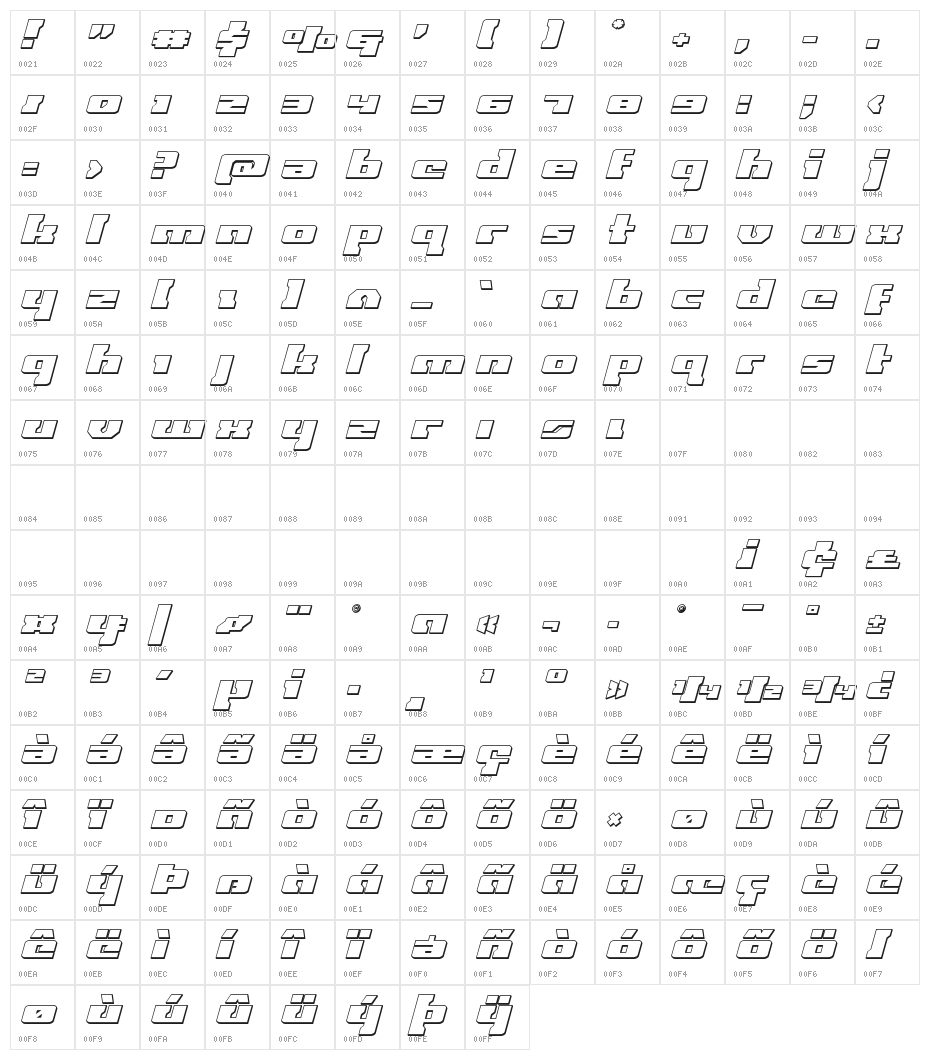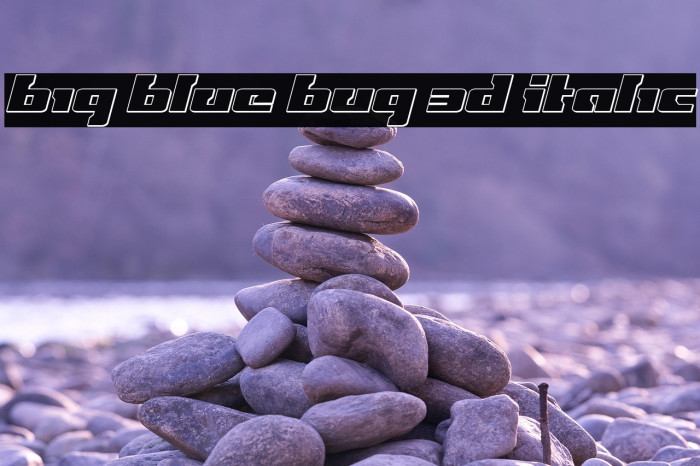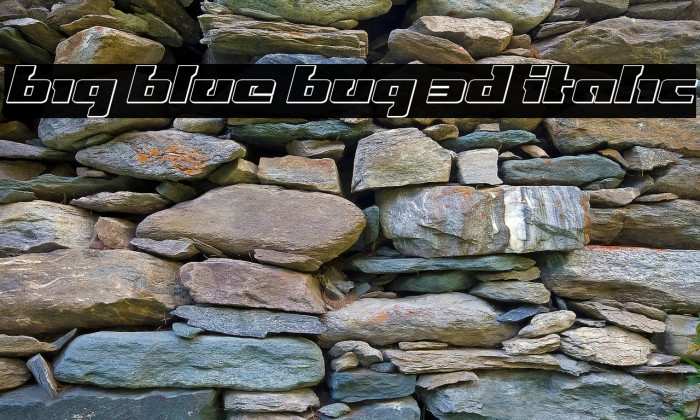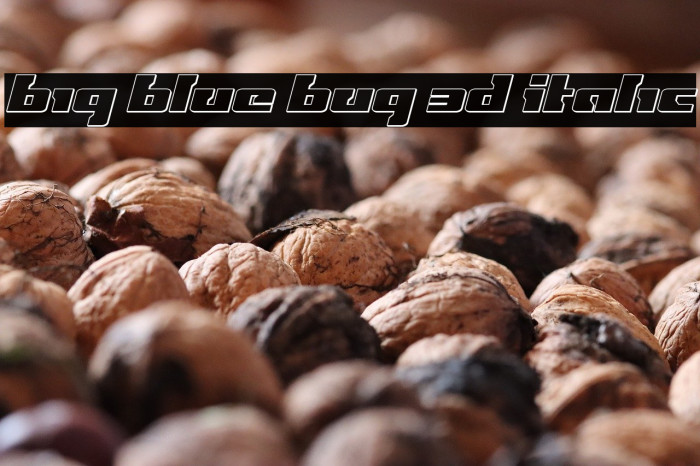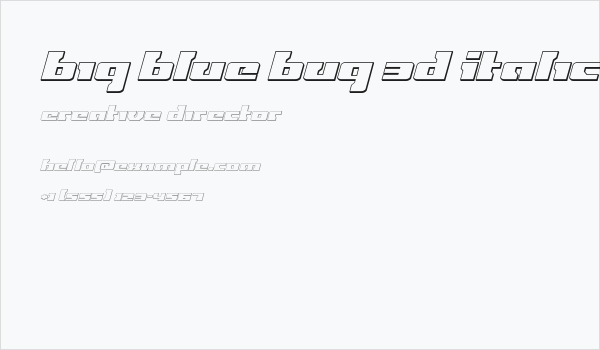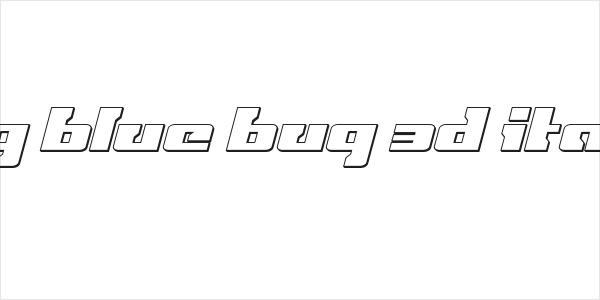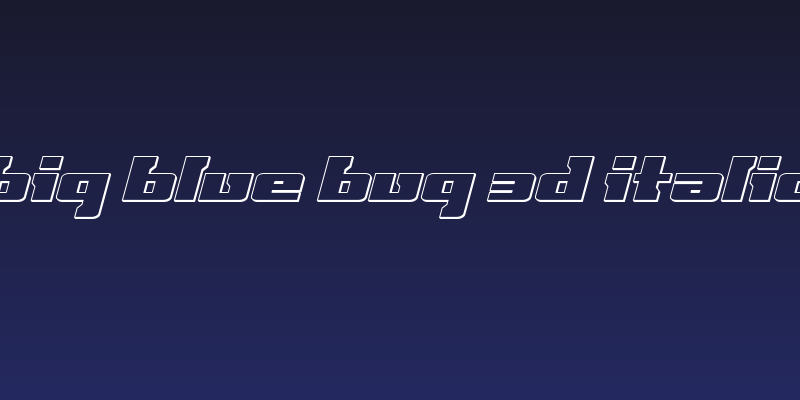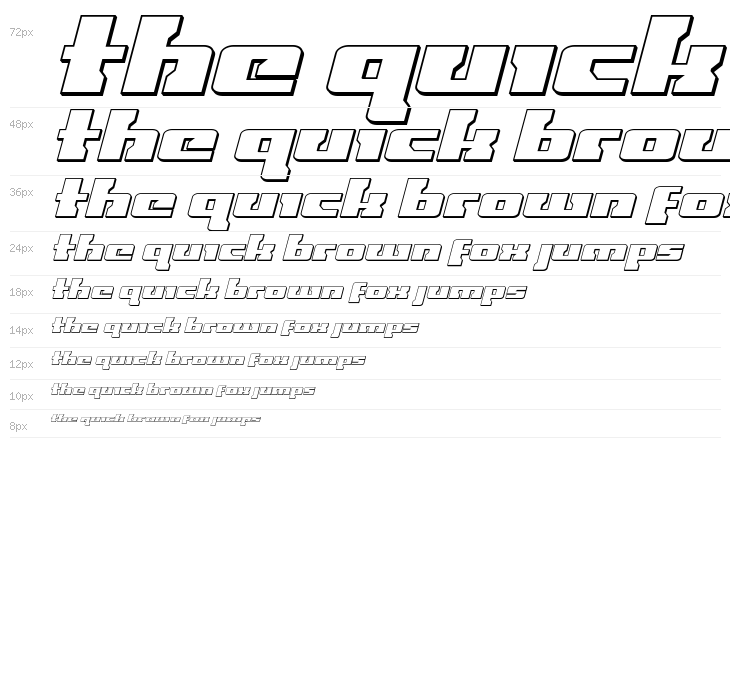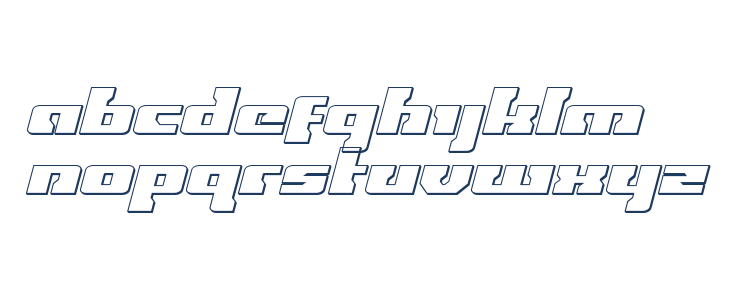
Big Blue Bug 3D Italic Font
Big Blue Bug 3D Italic Description
This font features a bold, three-dimensional appearance with a distinct italic slant, giving it a dynamic and futuristic look. The characters are outlined, creating a hollow effect that enhances the 3D illusion. Each letter is designed with sharp angles and clean lines, contributing to a modern and tech-inspired aesthetic. The uppercase and lowercase letters maintain a consistent style, while the numbers and special characters integrate seamlessly with the overall design. This font's unique structure makes it stand out, perfect for projects that require a bold statement.